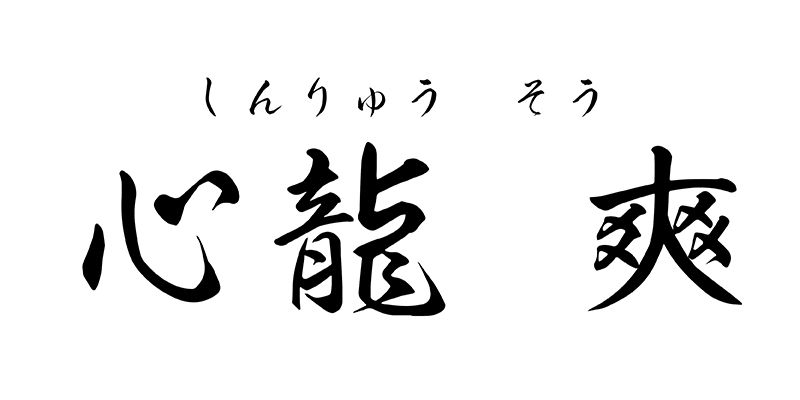
Shinryu is a brush-script typeface designed with the image of a gentle female dragon speaking to us. Its thin strokes make it possible to give a tender image, while it looks dignified when used for texts. The Kokuryu-sou in Adobe Fonts is a version of Kokuryu with fewer blurred strokes, which reduces the data size. It will be useful for letter cutting and animation or video clips.